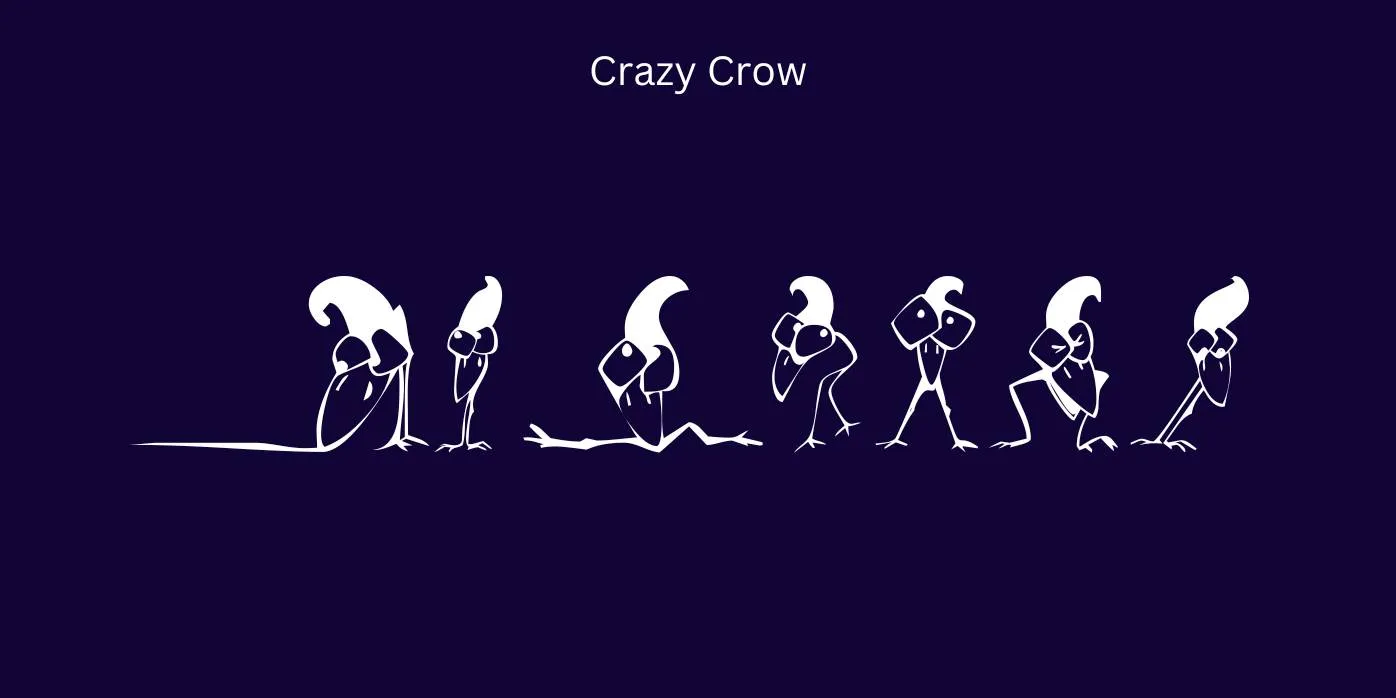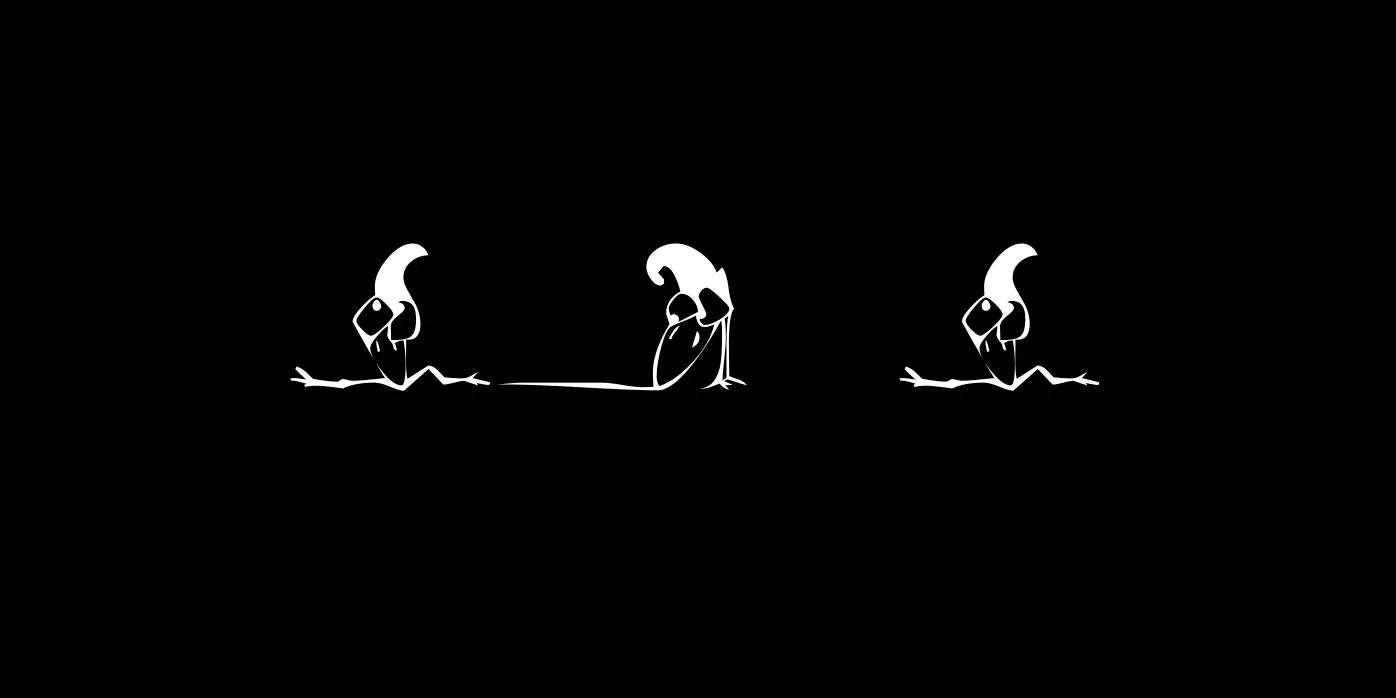
Kr Crazy Crow Font
Kr Crazy Crow Font is designed by KatsFun. You can make different projects by using this font. It has amazing features with dingbats. It contains 17 characters, 18 glyphs, and 1000 units per Em.
You can also use it for pairing with other fonts like hello kitty font to give a more attractive look to your projects. Mostly it was designed to be used in projects for kids-related items An online generator tool supports this font in which you can copy and paste your text easily and convert simple textures into stylish looks within seconds. There is no need to download the font. You can do all this process online.
Usage It is a very unique font with different styles of dingbats. It can be used to design many projects related to kids. It can be used to design cartoon movies or video games. For making attractive designs of banners, posters, and flyers you can use this font as well.
For storybooks, comic books, and children-related items you can use this font. You can also use this font for social media and other advertisement purposes which has a fun element of cartoons in it. To make or edit new designs you can use Coral applications or Cdn to give a more attractive look to your projects. For making different types of cards for kids you can also use this font.
Yes. To make or edit new designs in your projects you can use this font in the Coral Draw application to give an amazing look to your projects. Is Kr Crazy Crow Font good for printing? It is not recommended for printing mostly because its features are in on cartoon characters set.
Is Kr Crazy Crow Font good for websites? You can make so many projects by using this font and you can also make website designs if your projects are related to cartoon-based stories.